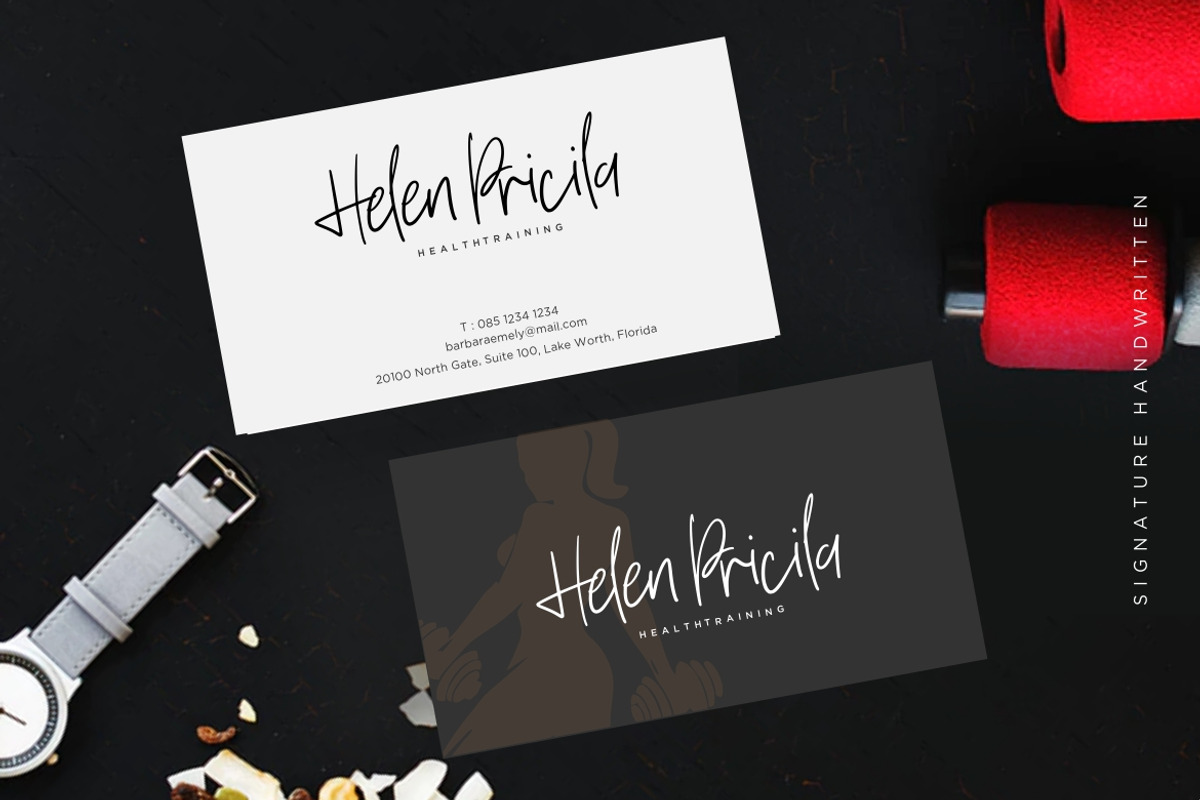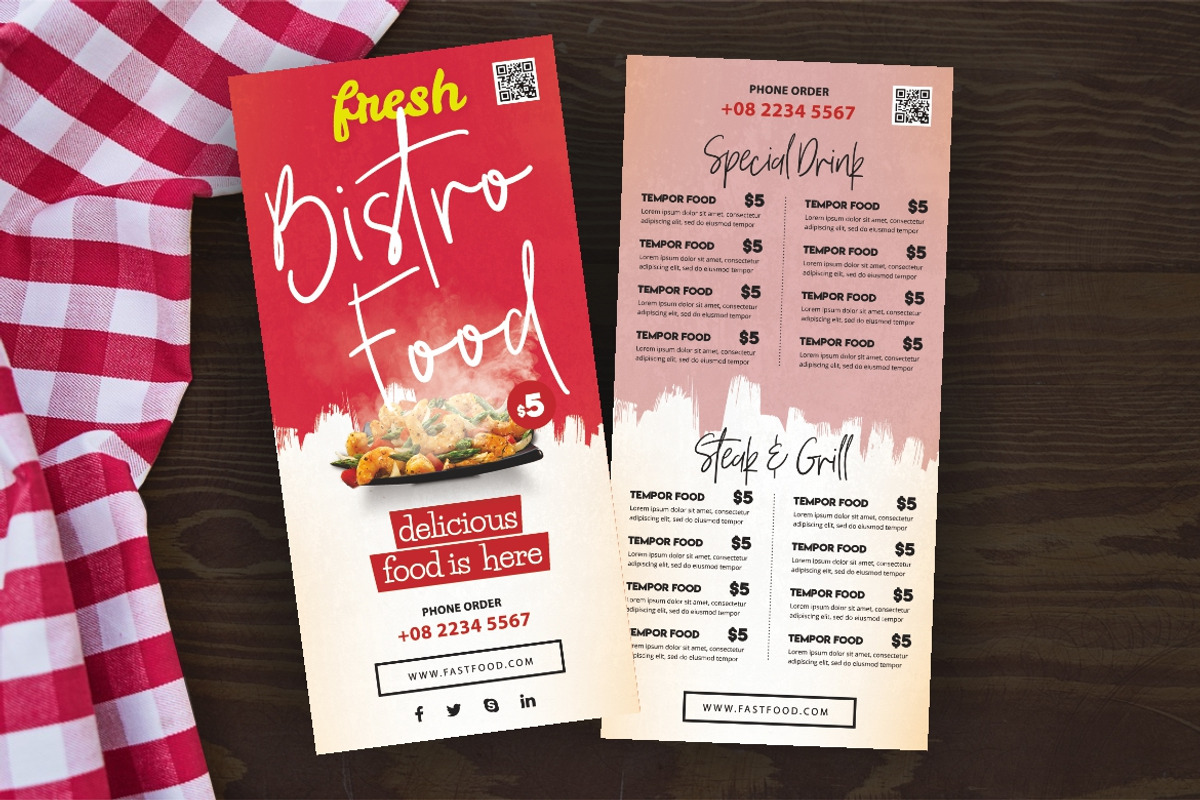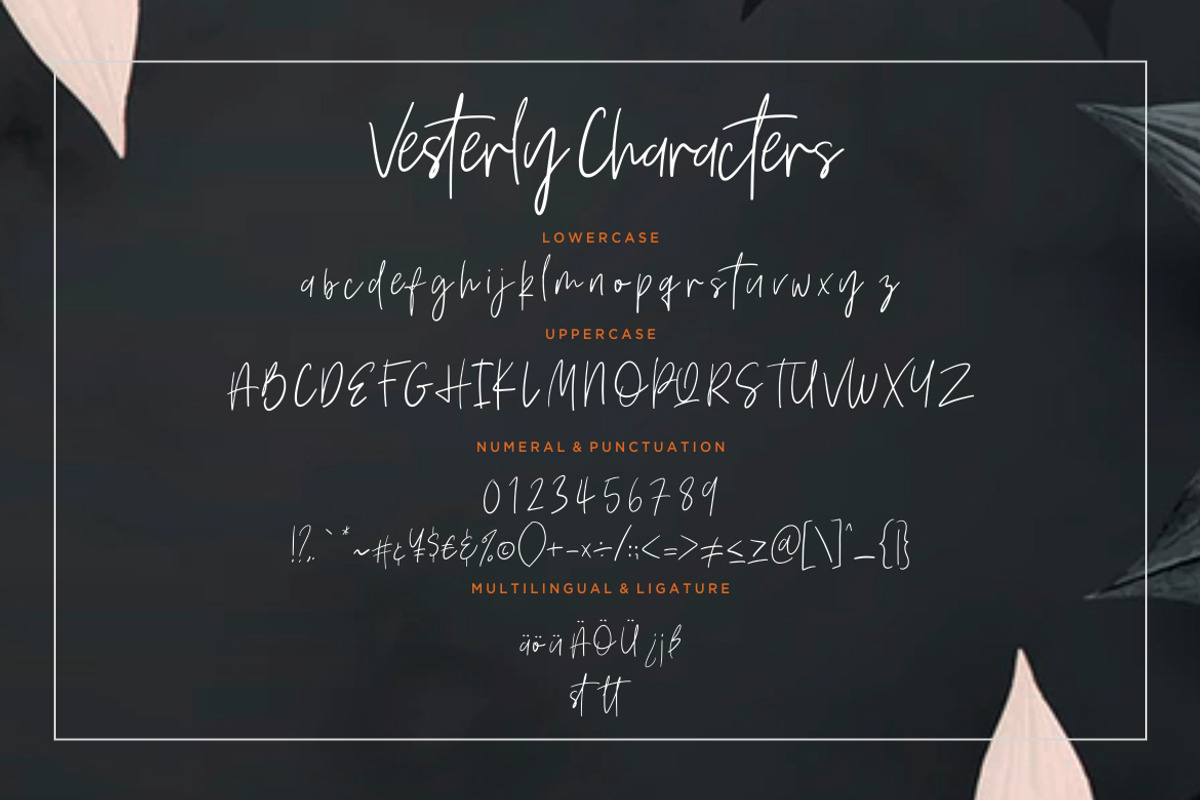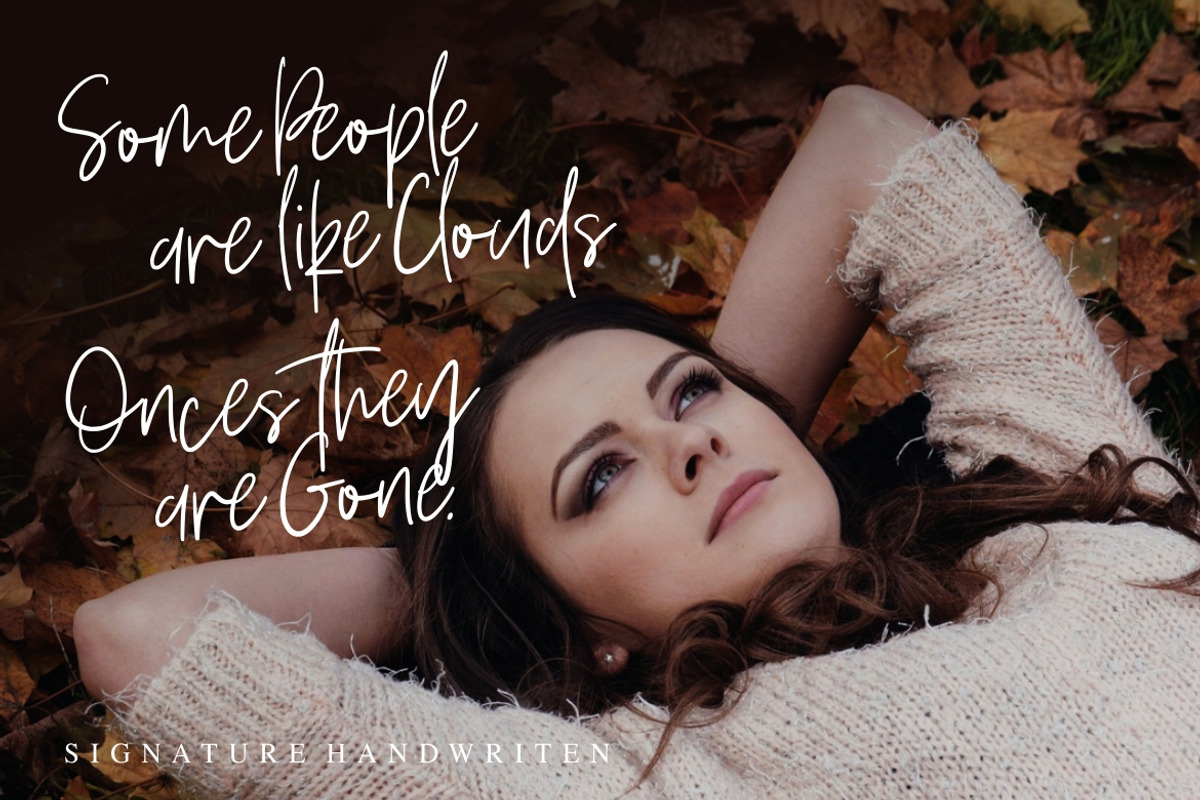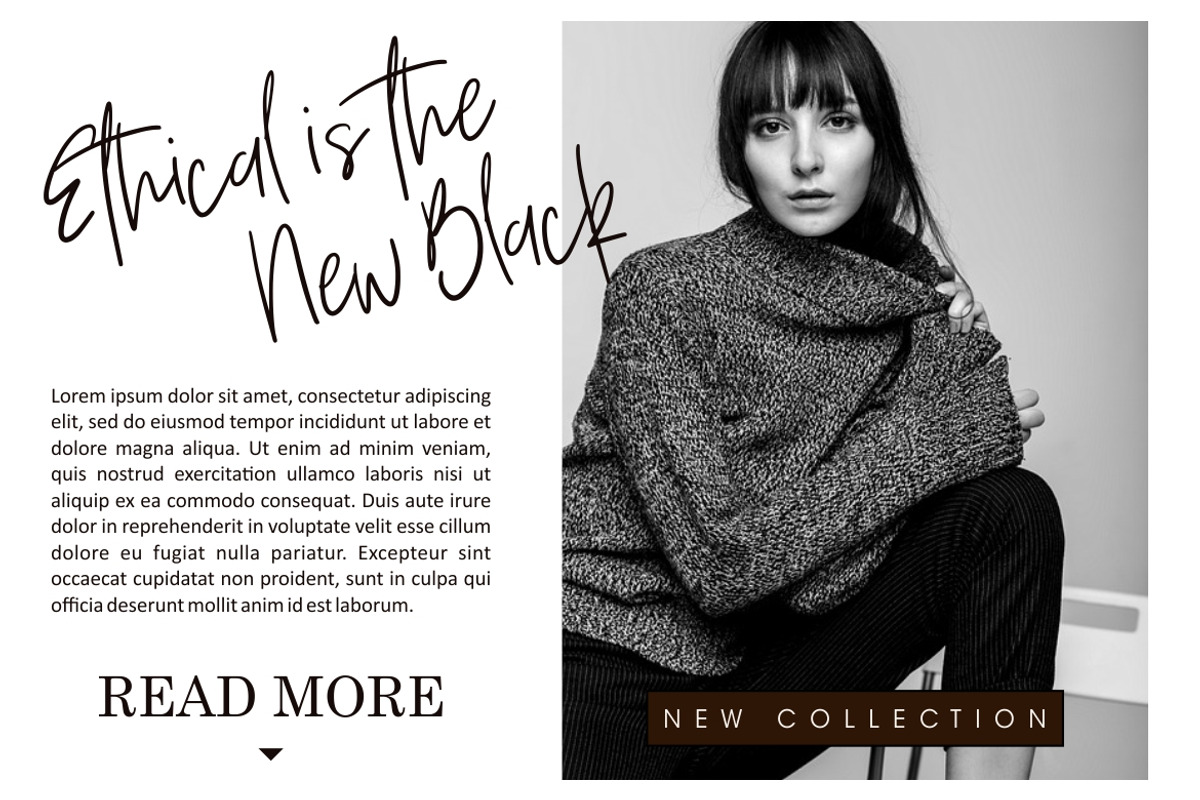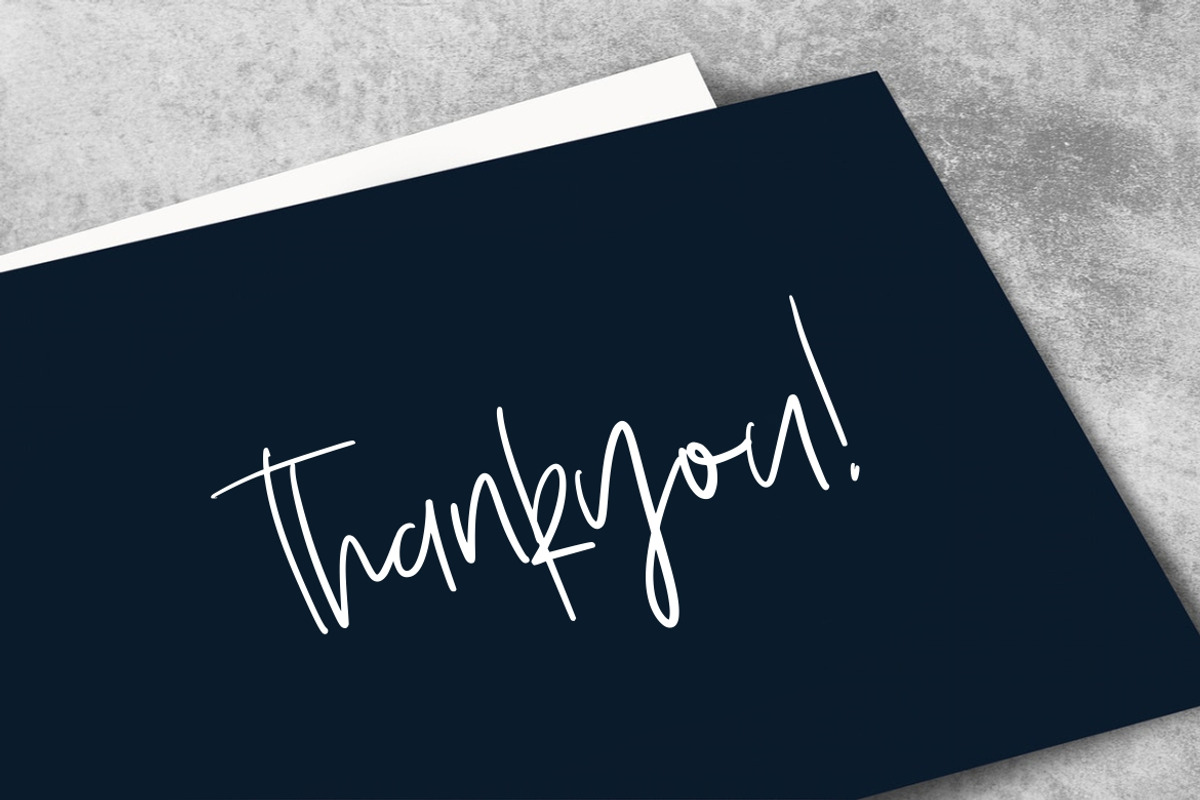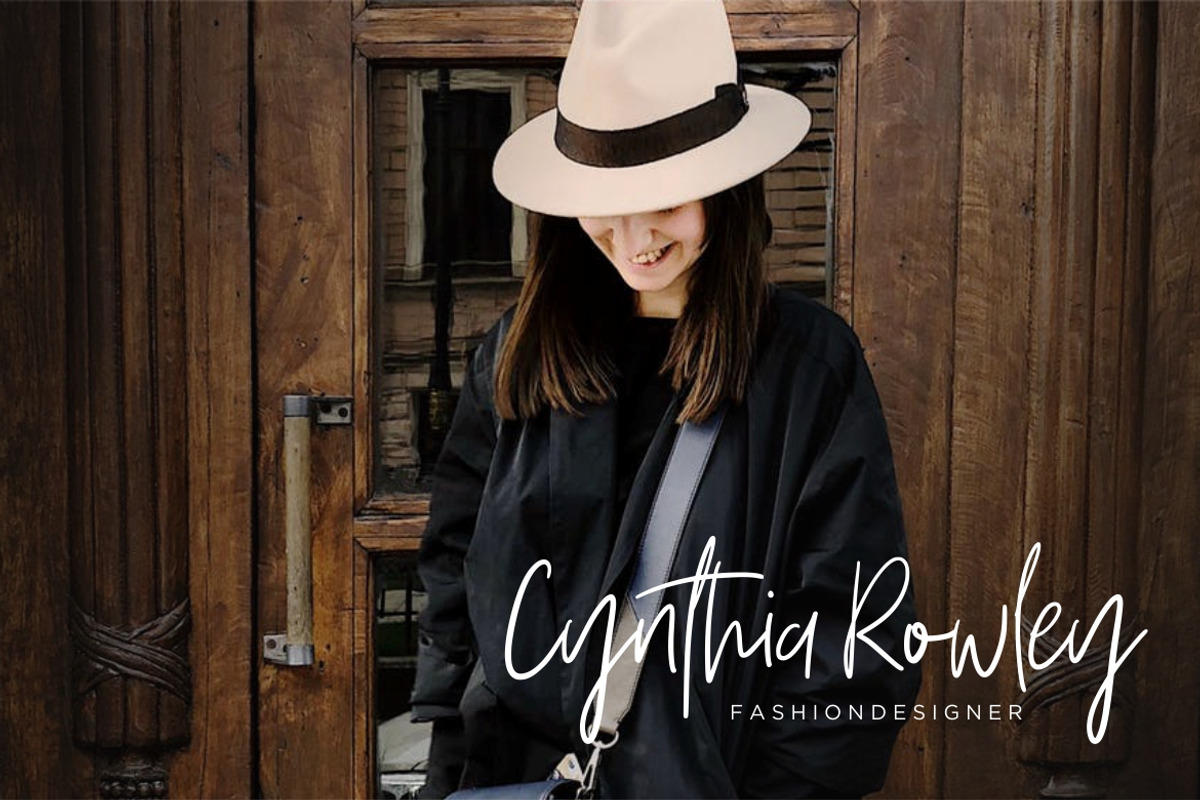
Vesterly Signature Wedding Font
Vesterly is nice and elegant signature classy font collection will make your project looks amazing.
Vesterly is perfect for branding projects, logo, wedding designs, social media posts, advertisements, product packaging, product designs, label, photography, watermark, invitation, stationery and any projects that need handwriting taste.
Why Vesterly Signature Wedding Font is worth a look
Vesterly Signature Wedding Font by Creatype Studio fits naturally into Branding, posters, packaging, typography.